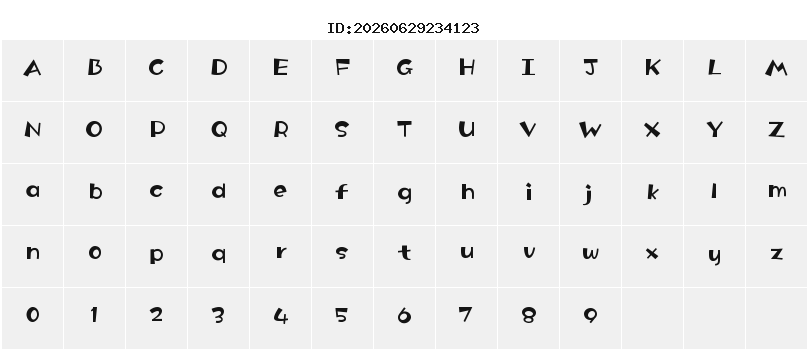
Aa圆式物语 (非商业使用) Preview
• Font Name: Aa圆式物语 (非商业使用)
• Font Style: 常规
• Font ID: 1.000;Aa;AaYuanshiwuyu (Non-Commercial Use);2020
• Full Font Name: Aa圆式物语 (非商业使用)
• PostScript Name: AaYuanshiwuyu(Non-CommercialUse)
• Character Count: 8010
• Designer: Aa
• Manufacturer: 翰美互通(厦门)科技有限公司
• Description: AaYuanshiwuyu (Non-Commercial Use) is a fantastic font with excellent features designed for user interfaces and electronic communications.
About Aa圆式物语 (非商业使用).ttf
Aa圆式物语 (非商业使用).ttf is a modern, elegant sans-serif font designed for ultimate readability and visual harmony. Perfect for branding, headlines, web design, and print materials.